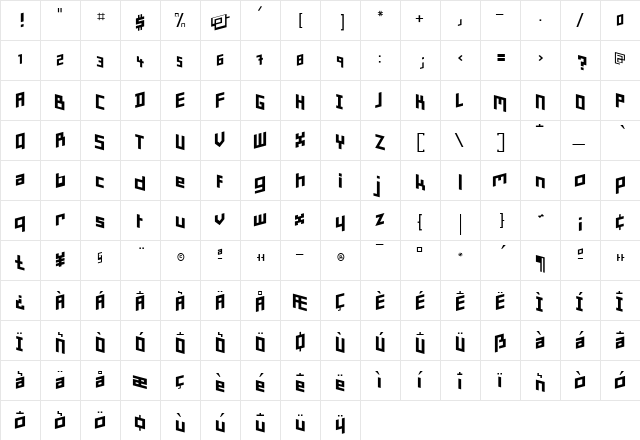
Minimum Bold
| Foundry | Copr. Pierre di Sciullo, FontShop International |
Design Context for Minimum Typeface
Minimum is a composed and adaptable typeface that performs quietly and consistently across a wide range of design contexts. The heavy weight commands attention and anchors typographic hierarchies.